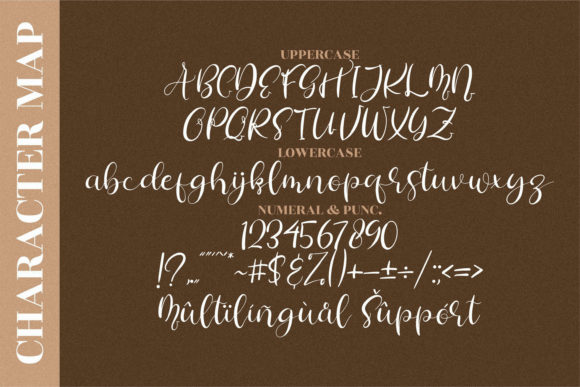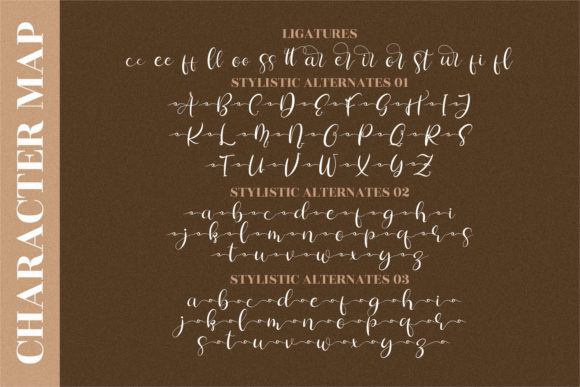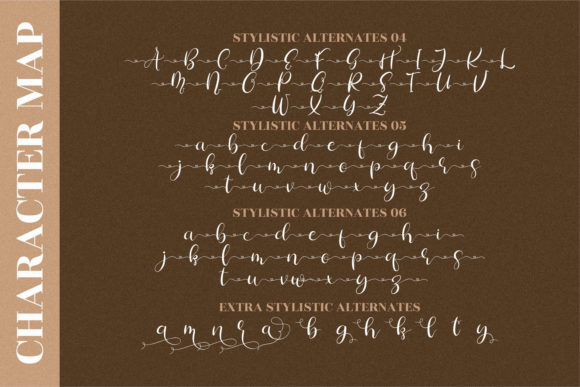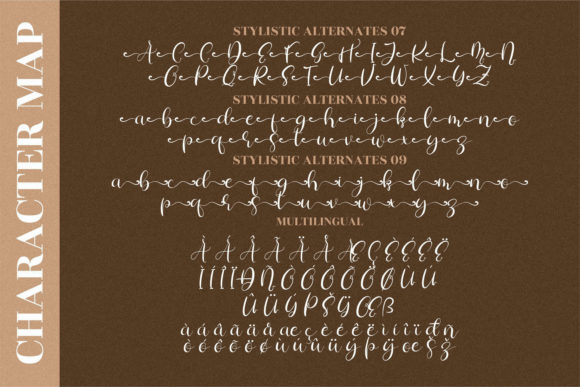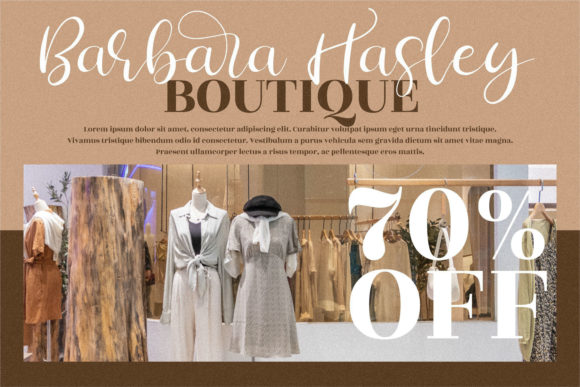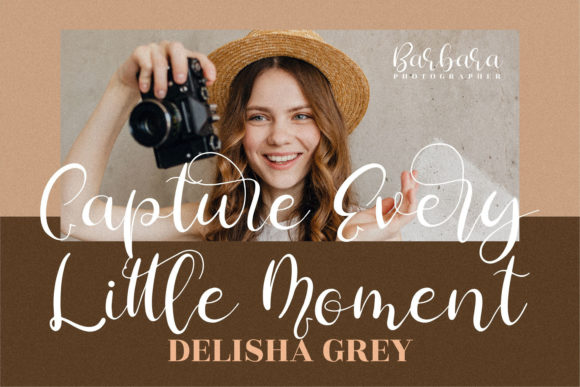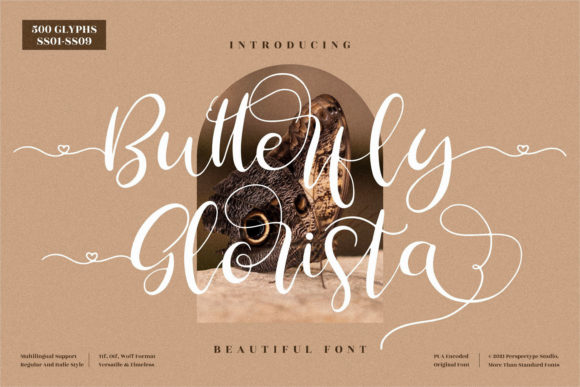
The Designer’s Delight: Unlocking the Beauty of Butterfly Glorista Font
I’ll never forget the moment I stumbled upon the Butterfly Glorista font while working on a luxury branding project for a high-end jewelry client. I had been searching for the perfect font to add a touch of elegance and sophistication to the design, but everything I found seemed either too bland or too over-the-top. That’s when I discovered Butterfly Glorista, a beautiful light handwritten font that instantly caught my eye. Its unique feel and stunning impact were exactly what I needed to elevate the project and make it shine.
- ✨ Luxurious feel: Butterfly Glorista adds a touch of luxury to any design project, making it perfect for high-end branding, packaging, or marketing materials.
- ✅ Versatile: This font works beautifully for both digital and print projects, from social media graphics to business cards and brochures.
- ⚠️ Legibility at small sizes: While Butterfly Glorista looks stunning at larger sizes, it may become a bit tricky to read at smaller sizes (below 10pt). Make sure to test it at different sizes to ensure it works for your project.
- ⚠️ Limited use cases for bold text: Since Butterfly Glorista is a light font, it may not be the best choice for designs that require bold or heavy text. Consider pairing it with a complementary bold font for added emphasis.
The Story Behind Butterfly Glorista: Designer Inspiration
Butterfly Glorista was designed by a talented type designer who wanted to create a font that would evoke the beauty and elegance of a butterfly’s wings. With its delicate lines, intricate details, and luxurious feel, Butterfly Glorista is the perfect choice for designers who want to add a touch of sophistication to their projects.
| Is Butterfly Glorista suitable for body text? | While Butterfly Glorista is a beautiful font, it’s best suited for headlines, titles, and short paragraphs. For body text, consider using a more legible font. |